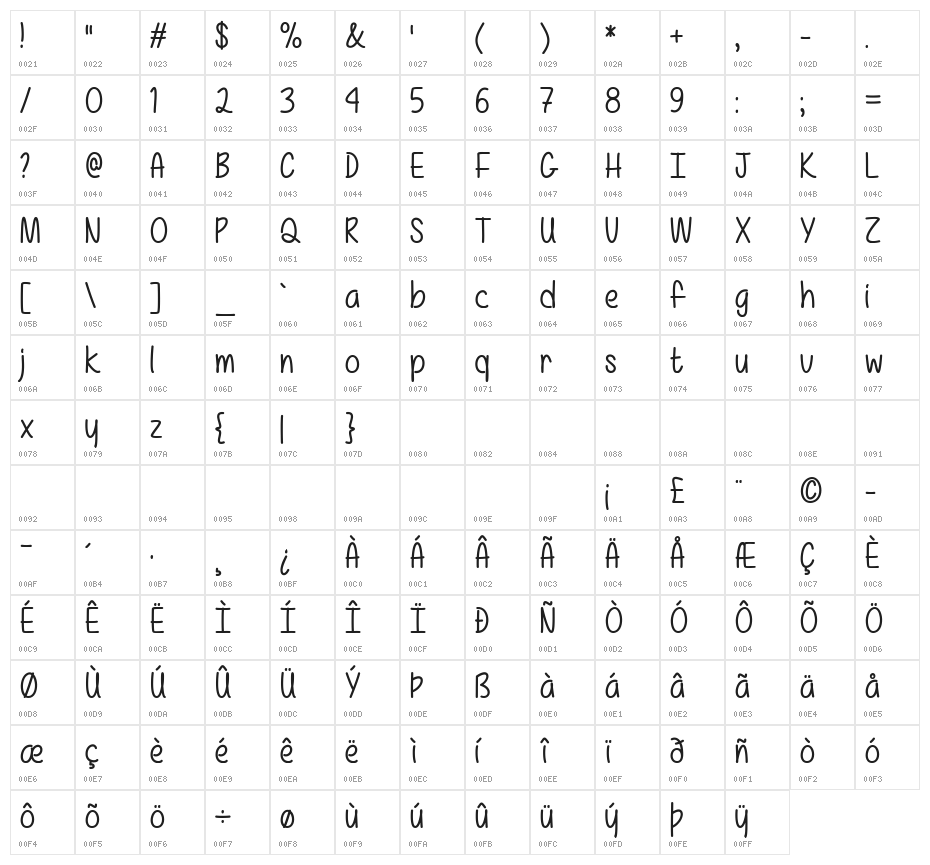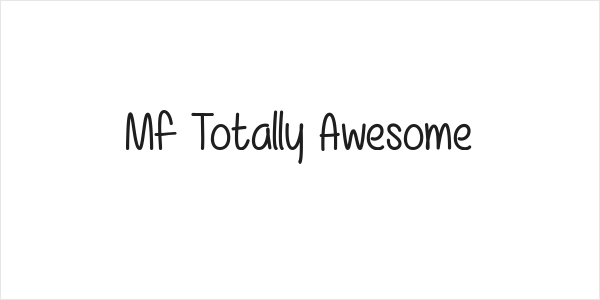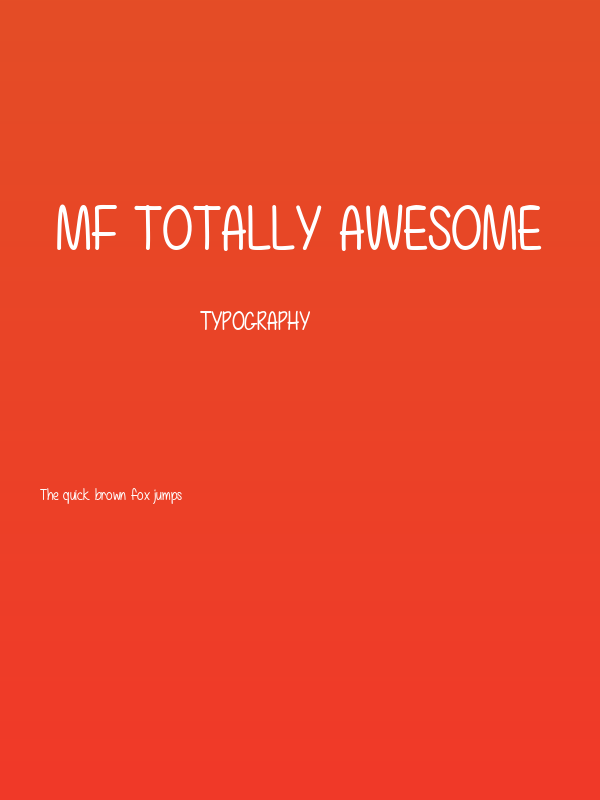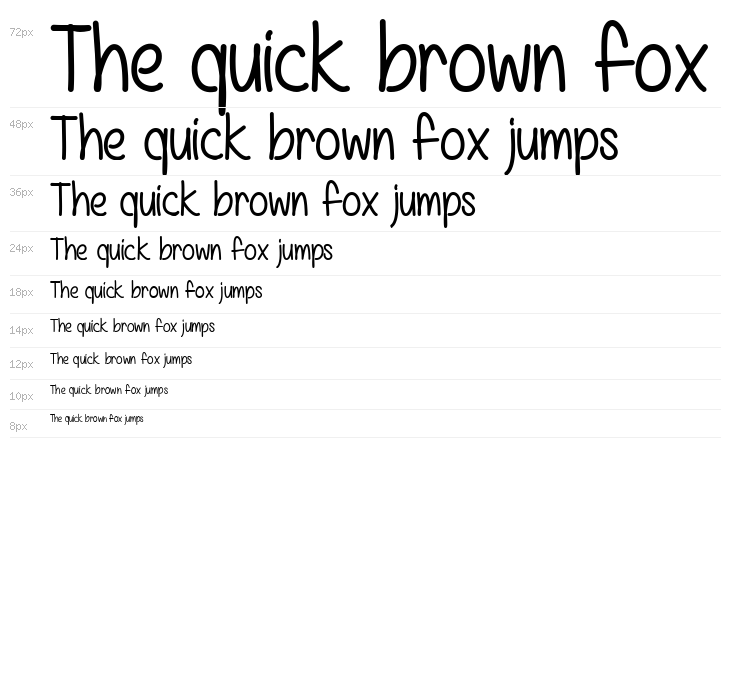
Mf Totally Awesome Font
Mf Totally Awesome Description
This font features a playful and casual handwritten style, characterized by its rounded, smooth curves and consistent stroke width. The letters are slightly elongated, giving a whimsical and friendly appearance. The uppercase and lowercase letters maintain a cohesive look, with a slight slant that adds to the informal feel. The numerals and special characters are designed to match the overall style, ensuring uniformity across all text. This font is ideal for projects that require a personal touch, such as greeting cards, invitations, or children's books. Its legibility and charm make it suitable for both digital and print media.
| Proposed Projects | Ideal for greeting cards, invitations, children's books, and playful branding. |